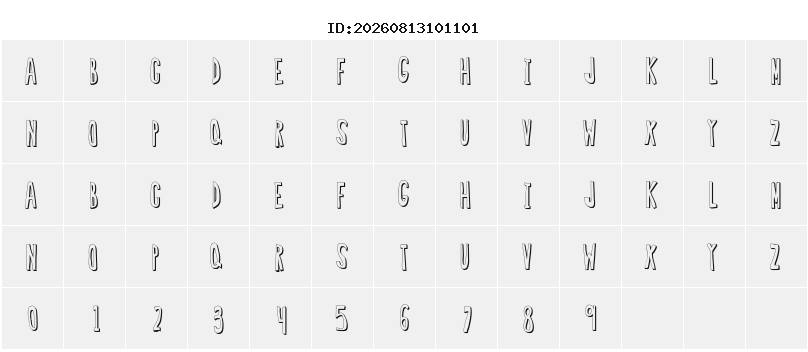
• Font Name: Regular Font
• Designer: =^_^=
• Manufacturer: Skyhaven
About Regular Font.otf
Regular Font.otf is a modern, elegant sans-serif font designed for ultimate readability and visual harmony. Perfect for branding, headlines, web design, and print materials.